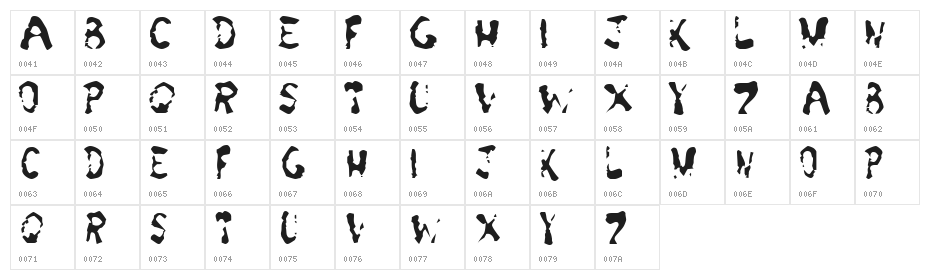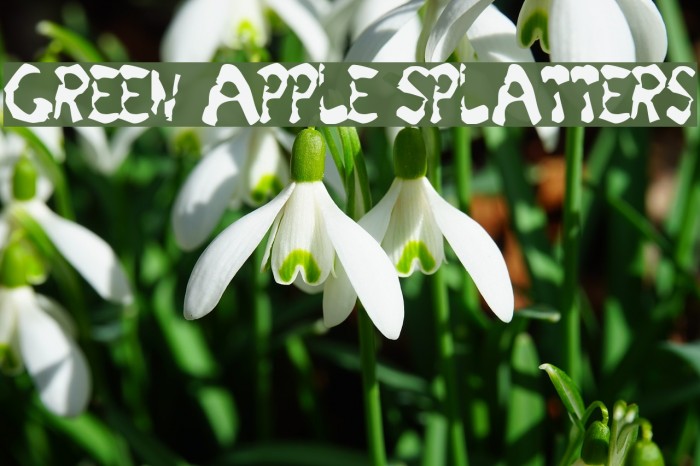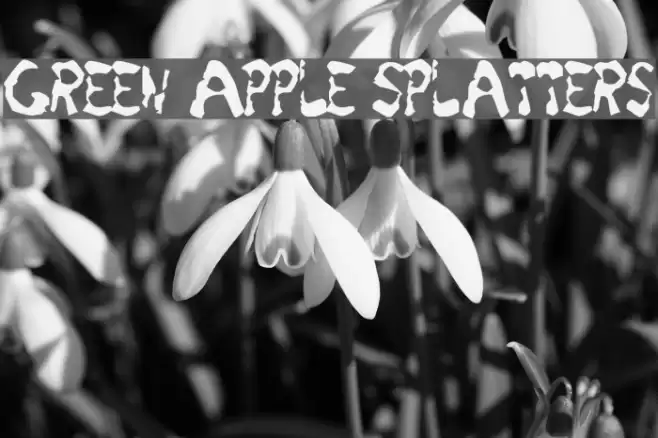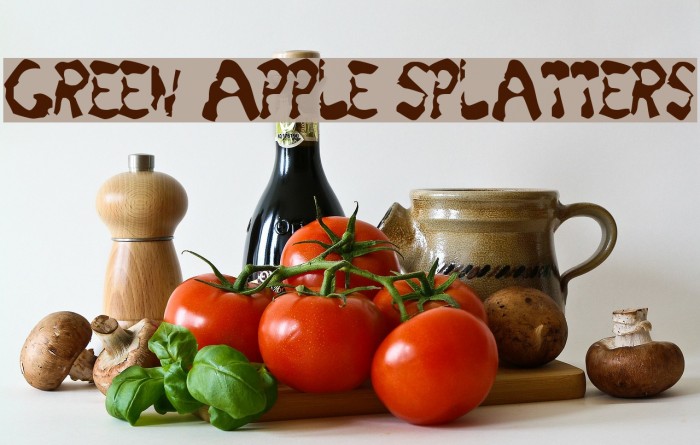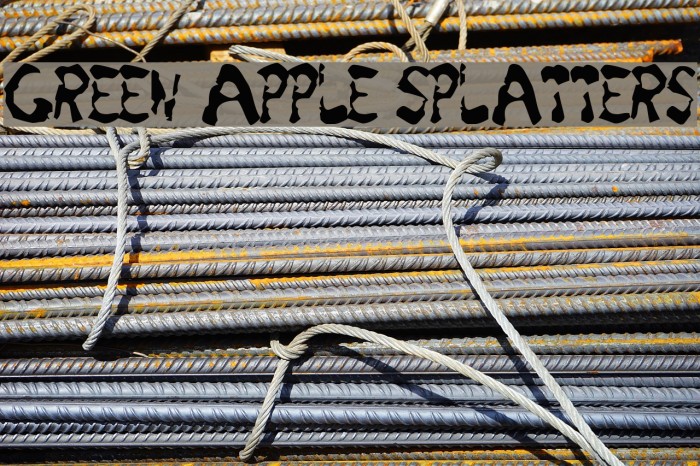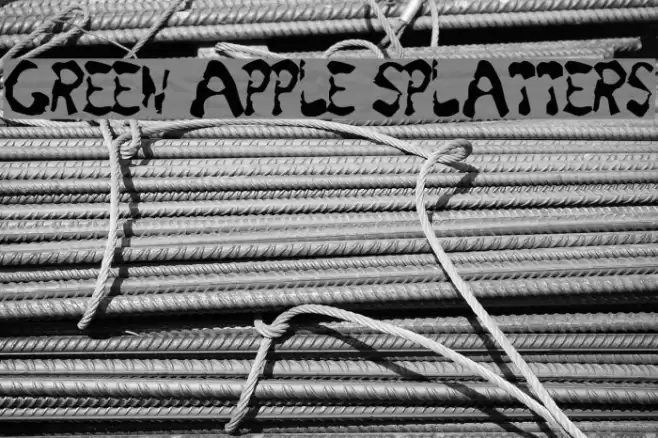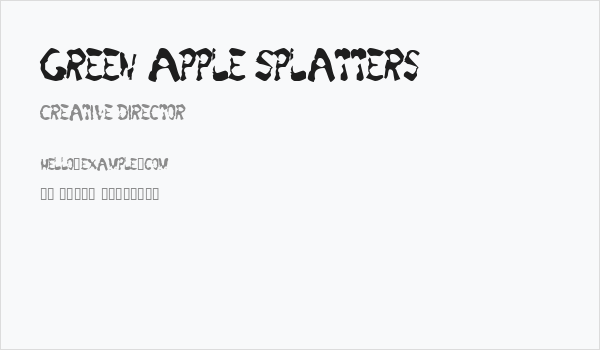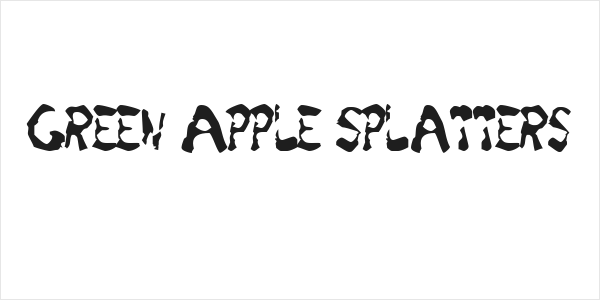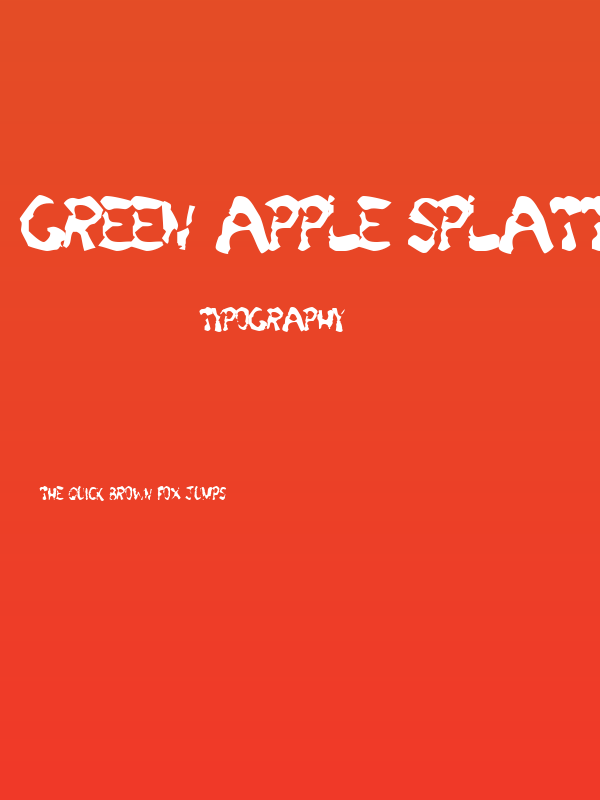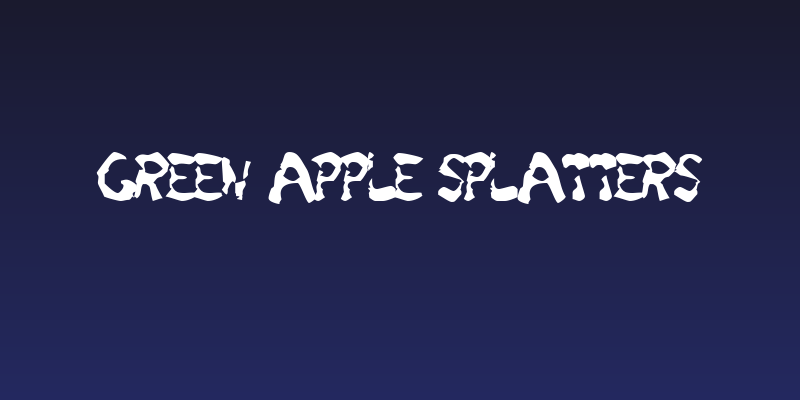
Green Apple Splatters Font
Green Apple Splatters Description
This font features a bold and artistic design with splatter effects that create a dynamic and edgy appearance. The characters are heavily stylized, with irregular edges and a sense of movement, resembling paint splatters or ink blots. This design choice gives the font a unique and eye-catching look, making it suitable for creative and unconventional projects. The uppercase and lowercase letters maintain a consistent style, while the numbers and special characters follow the same splattered theme, ensuring a cohesive appearance across all text elements.
| Proposed Projects | Ideal for album covers, street art-inspired designs, event posters, and creative branding projects. |